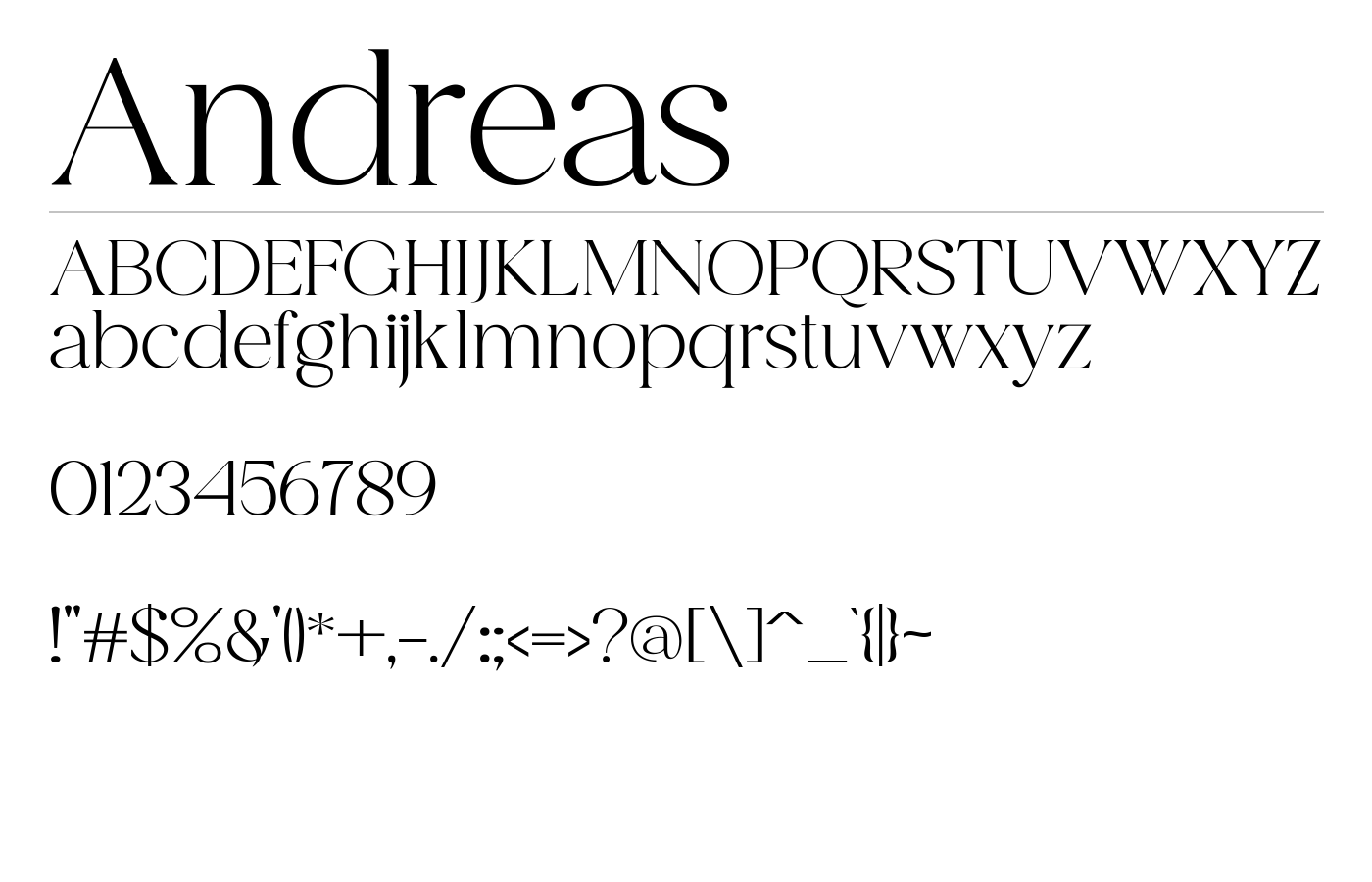
Andreas is an elegant serif font with a slender, high-contrast design that combines classic sophistication with modern minimalism. Its delicate serifs and refined letterforms convey a sense of luxury and style, making it an excellent choice for fashion branding, upscale editorial content, and stylish headlines where a graceful and timeless look is desired.
Andreas Font
About Andreas Font
| Font family | Andreas Font |
| Designer | khaidir |